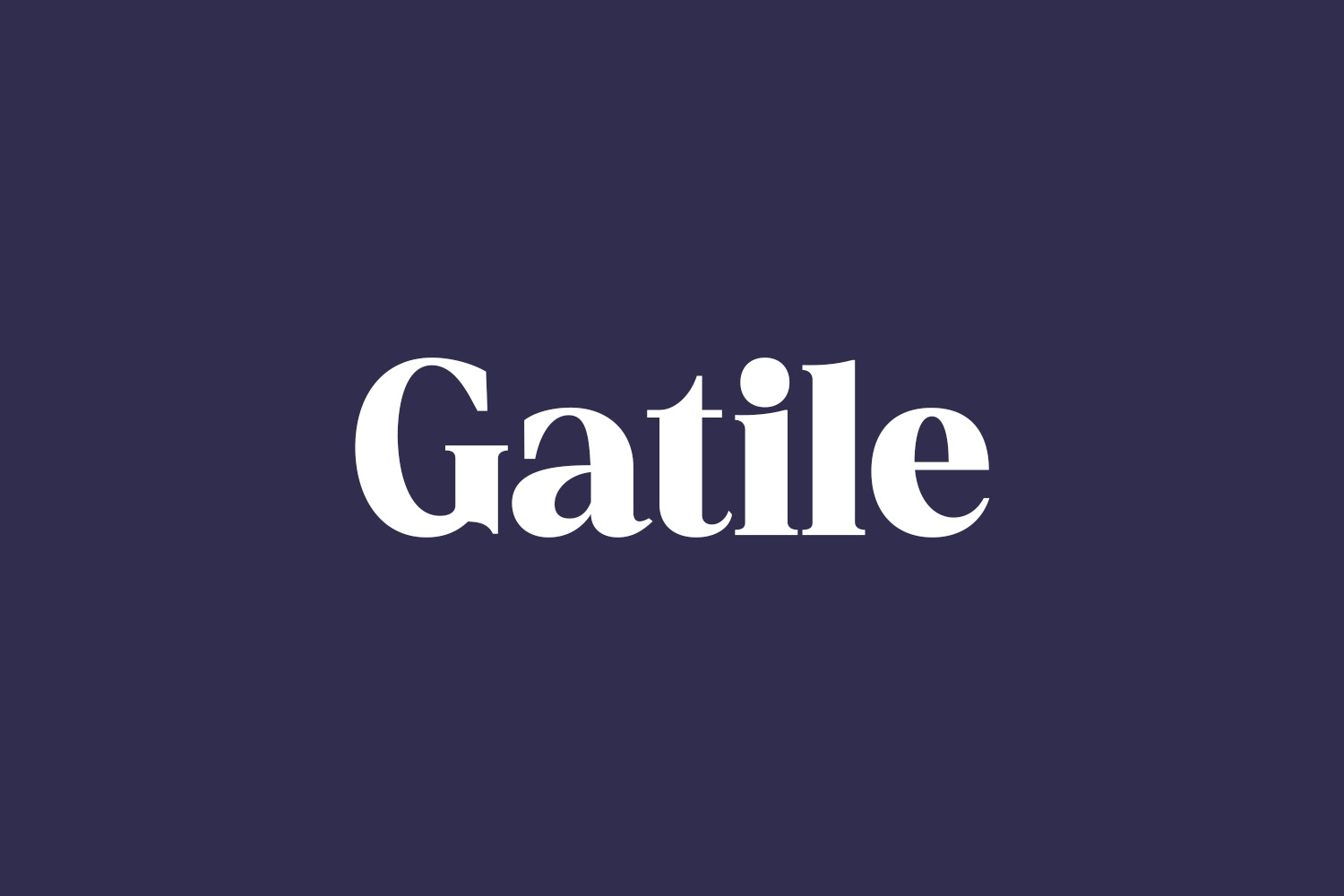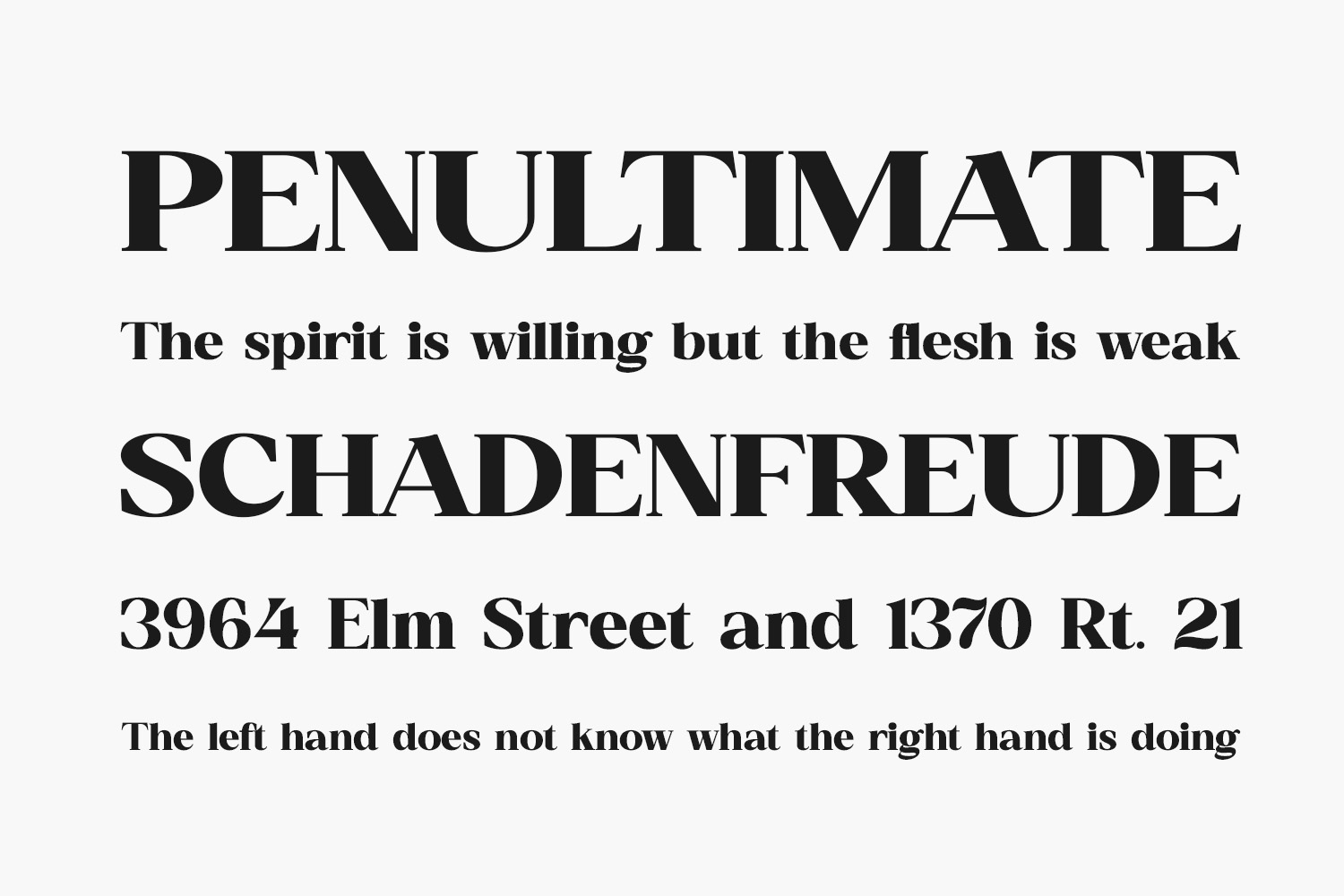
Discover the timeless elegance of Gatile Free Font, a sophisticated serif font blending modern aesthetics with classic charm. Boasting a distinctive style and a dignified appearance, this typeface is an ideal choice for creating refined and luxurious logos, captivating book or movie titles, and elevating the design of fashion brands, magazines, clothing items, lettering, quotes, and beyond. Elevate your creative projects with the unique and solemn allure of Gatile. Gatile Free Font is free for personal use only. Please purchase the full version for commercial use.